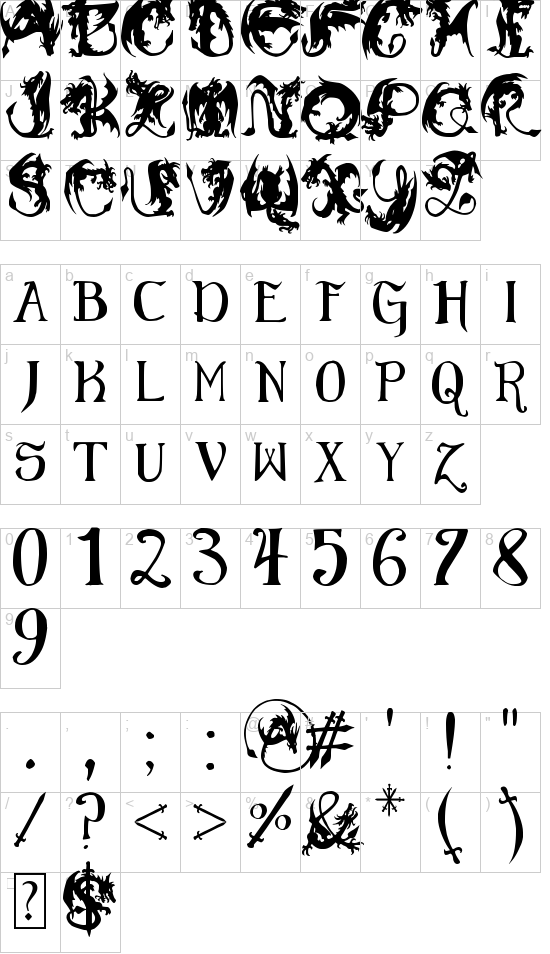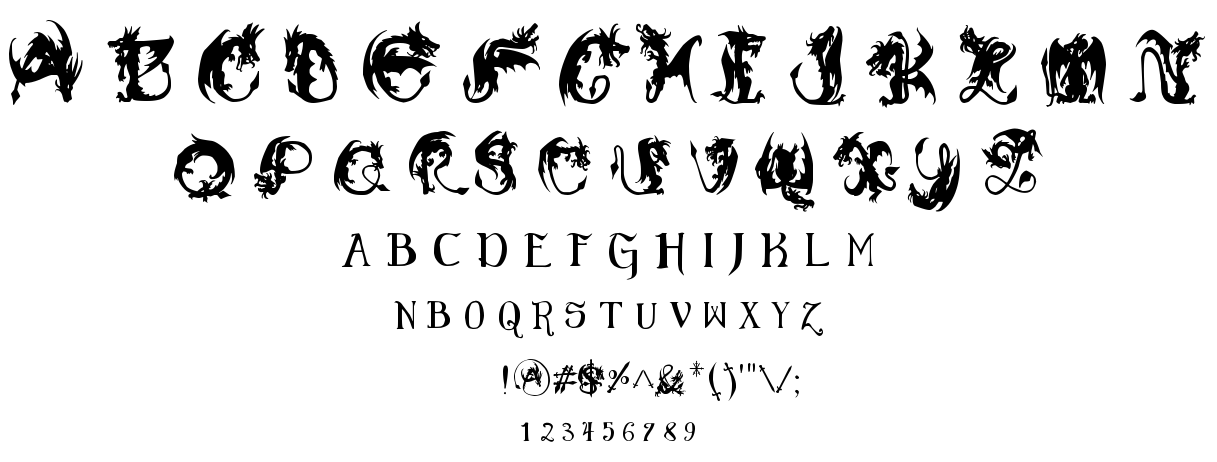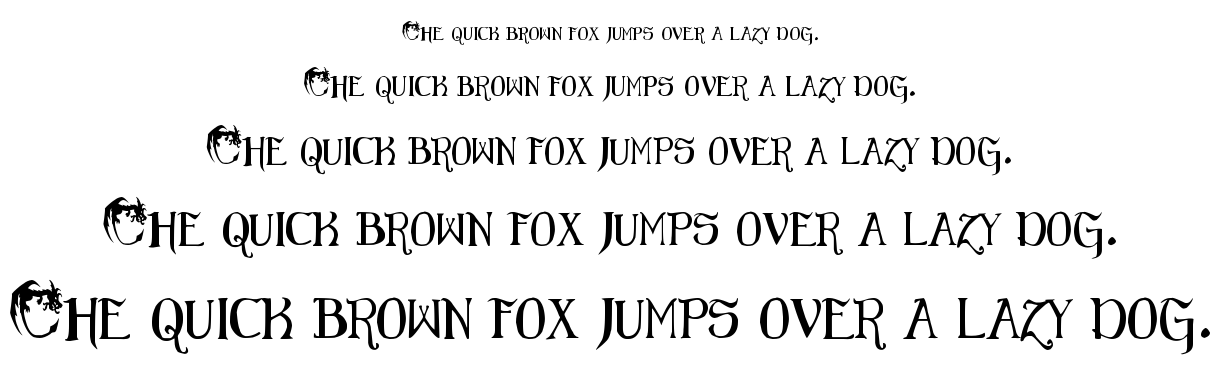
EG Dragon Caps
Part of the Elementary Gothic font family, this is a modern gothic font with a medieval / fantasy / rennaisance flavor. Excellent for titling, tag lines, and desktop publishing applications.